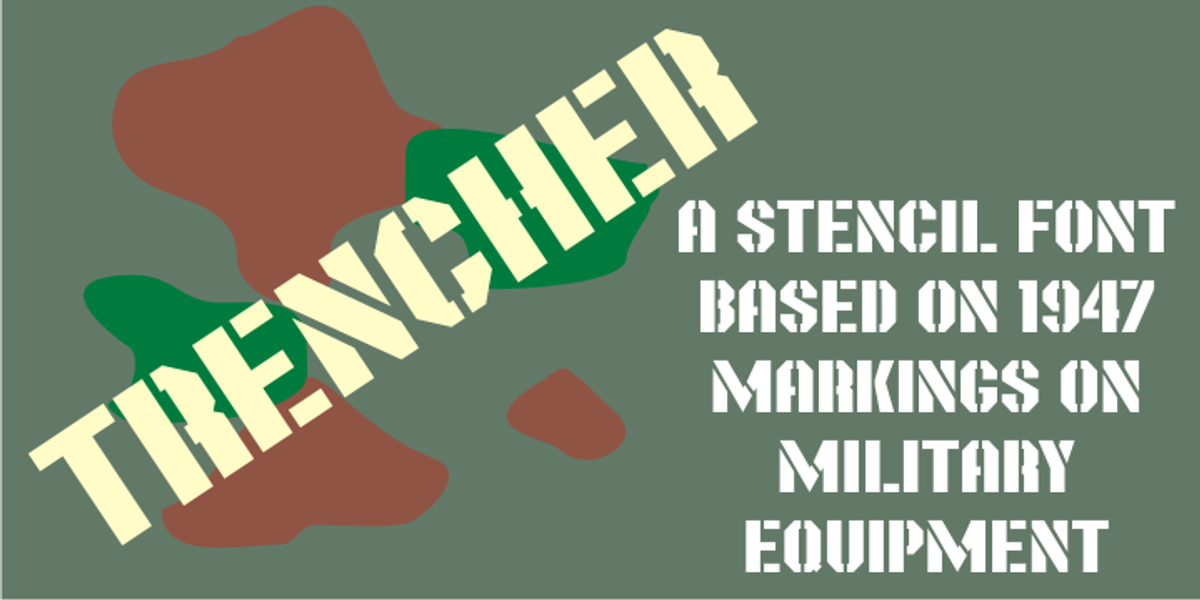
Trencher JNL
Trencher JNL is based on hand-cut stencils spray-painted onto a vintage 1947 Cleveland Trencher acquired by the Marine Corps Mechanized Museum at Camp Pendleton, California. Restoration volunteer Brian Platzer supplied to Jeff Levine the images of the stencil markings - and they were quickly re-drawn and turned into a digital type face.